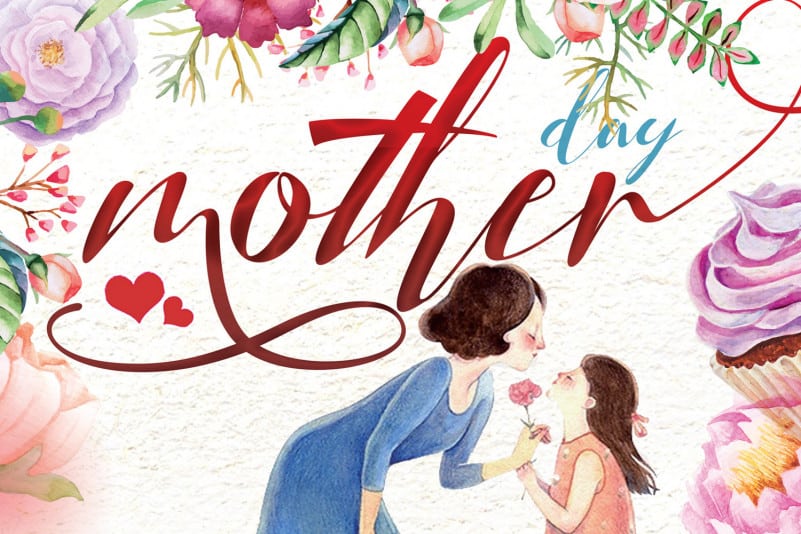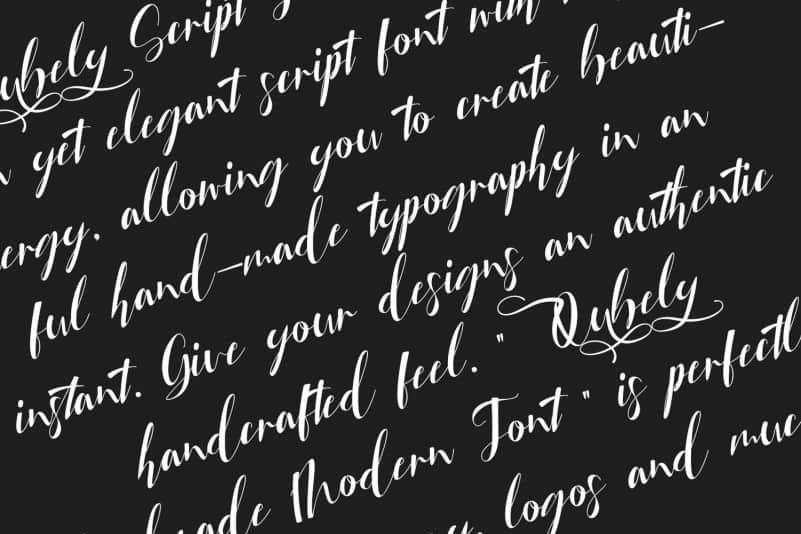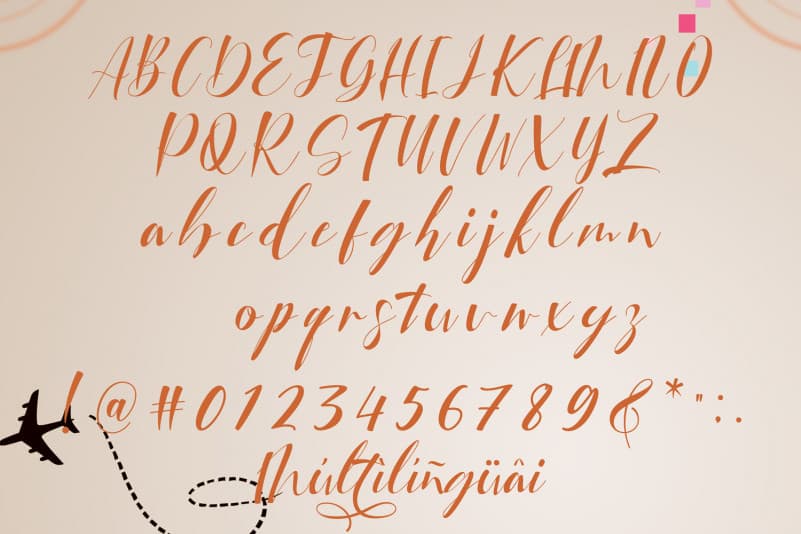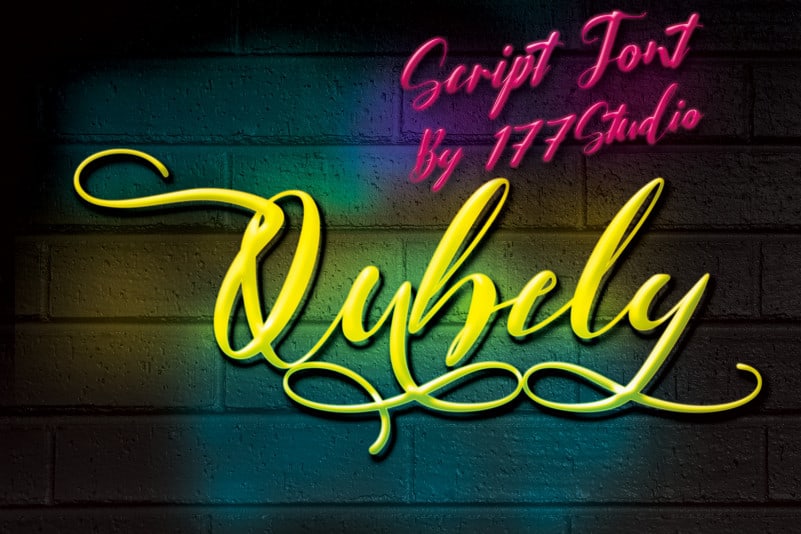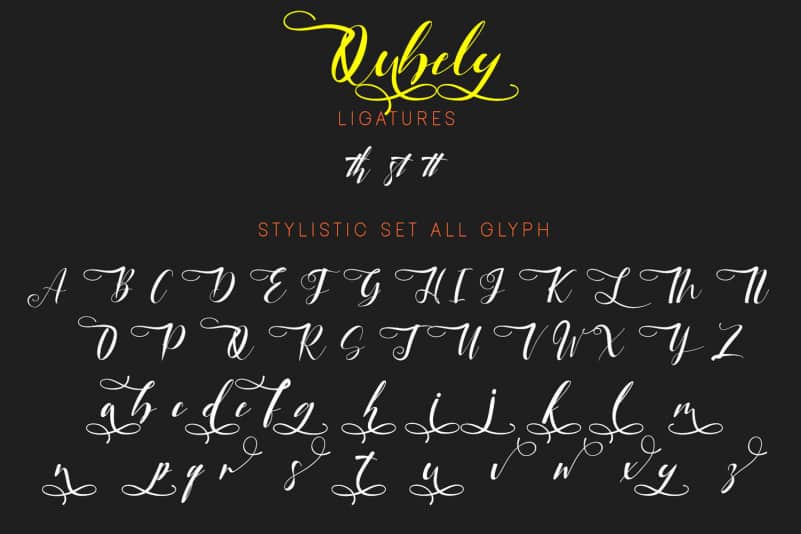
Qubely Script Font
Qubely Script Font ! A fabulously fun yet elegant script font with tons of energy, allowing you to create beautiful hand-made typography in an instant. Give your designs an authentic handcrafted feel. “Qubely Handmade Modern Font” is perfectly suited to stationery, logos and much more.
Qubely is also included full set of:
• Uppercase and Lowercase letters
• Special Ligatures
• Stylistic Alternates
• Numerals & Punctuation
• Accented characters